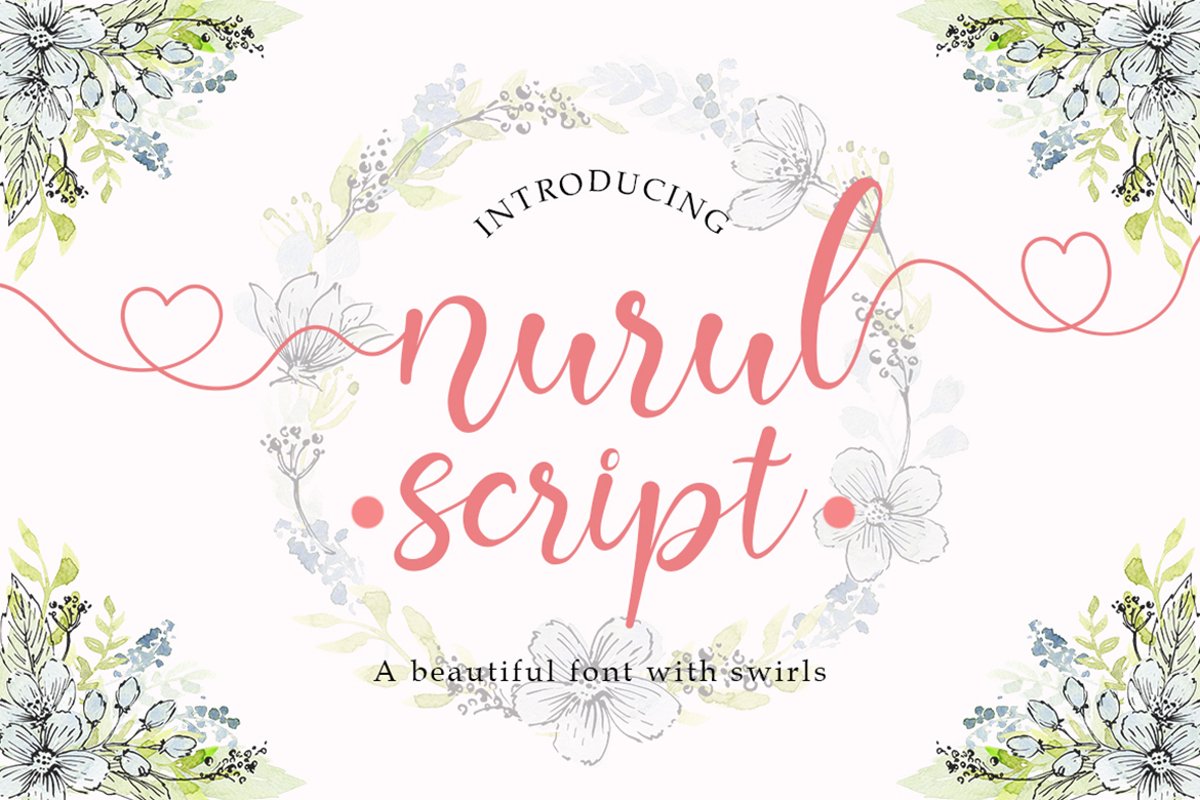
Nurul Script | A Calligraphy Font
Nurul Script
Nurul is an incredibly stunning and sweet script, full of love. Fall in love with its delicate swashes!It is a luxury, natural & modern handwritten font. The past meets the present in this timeless handlettered font, a whimsical, elegant font perfect for wedding stationery & branding.
Nurul Font is an incredibly stunning and sweet script, full of love. Fall in love with its delicate swashes! Perfectly macth for design like banner, book cover, t-shirt, branding, promotion, social media post, quotes, wedding, photography and more.
• Ligatures and Stylistic Alternates